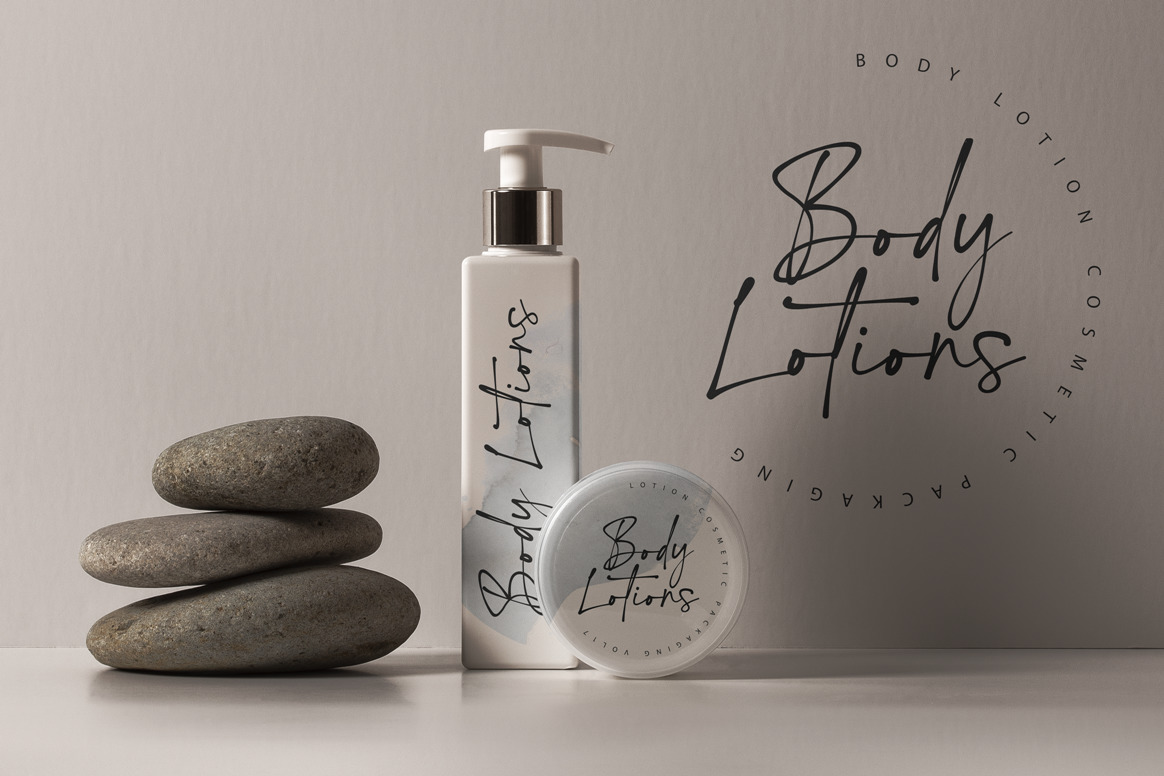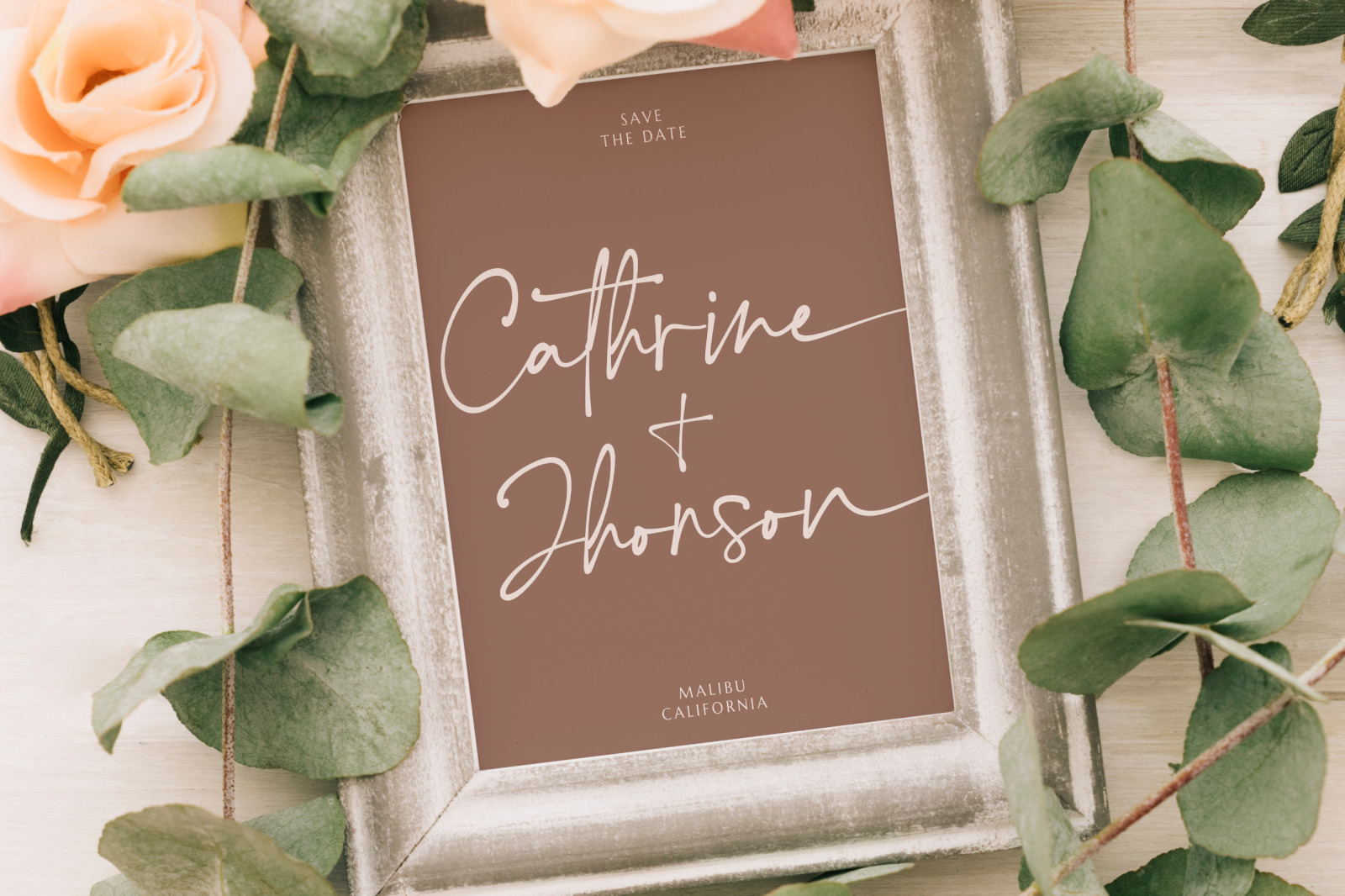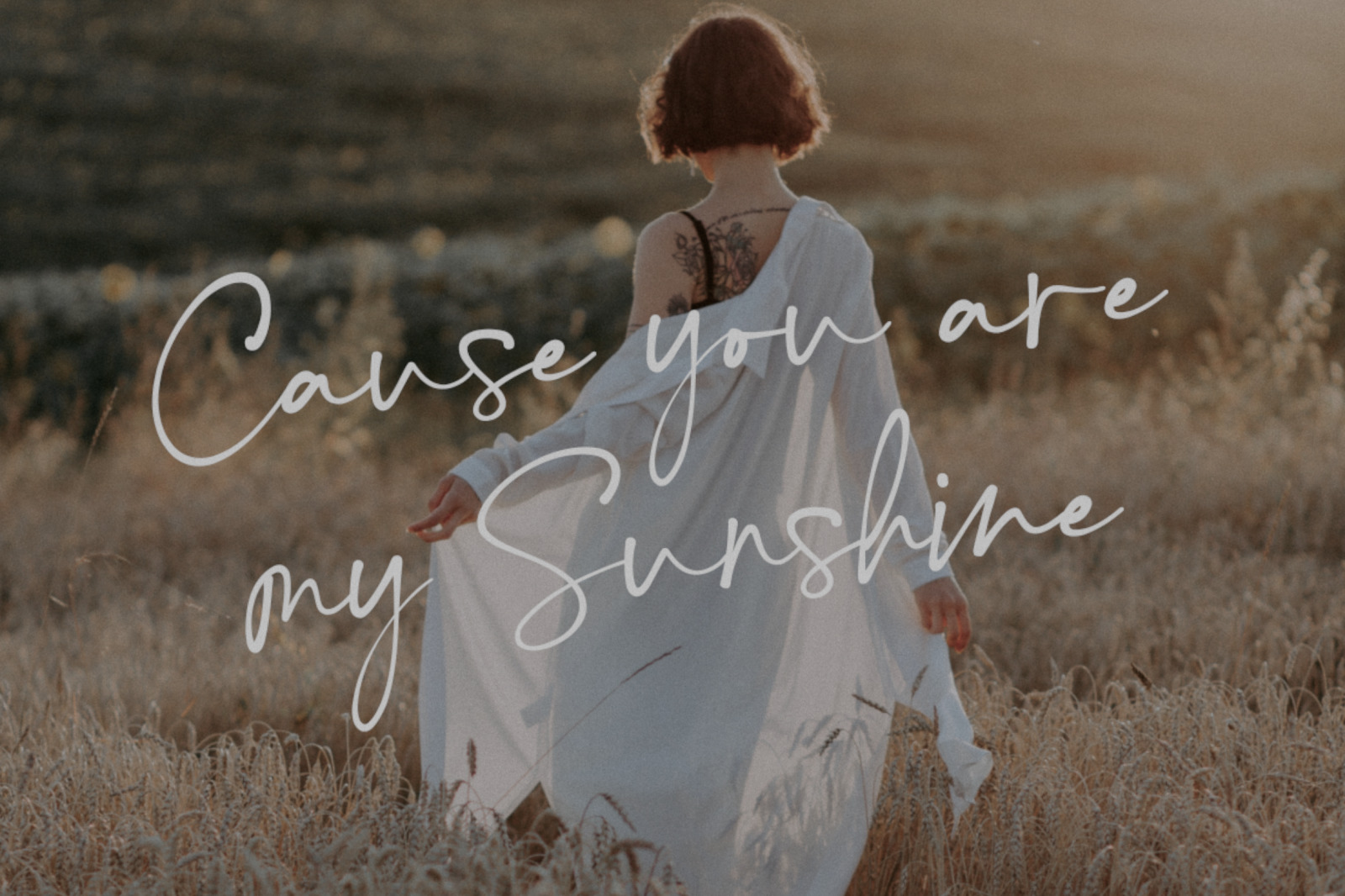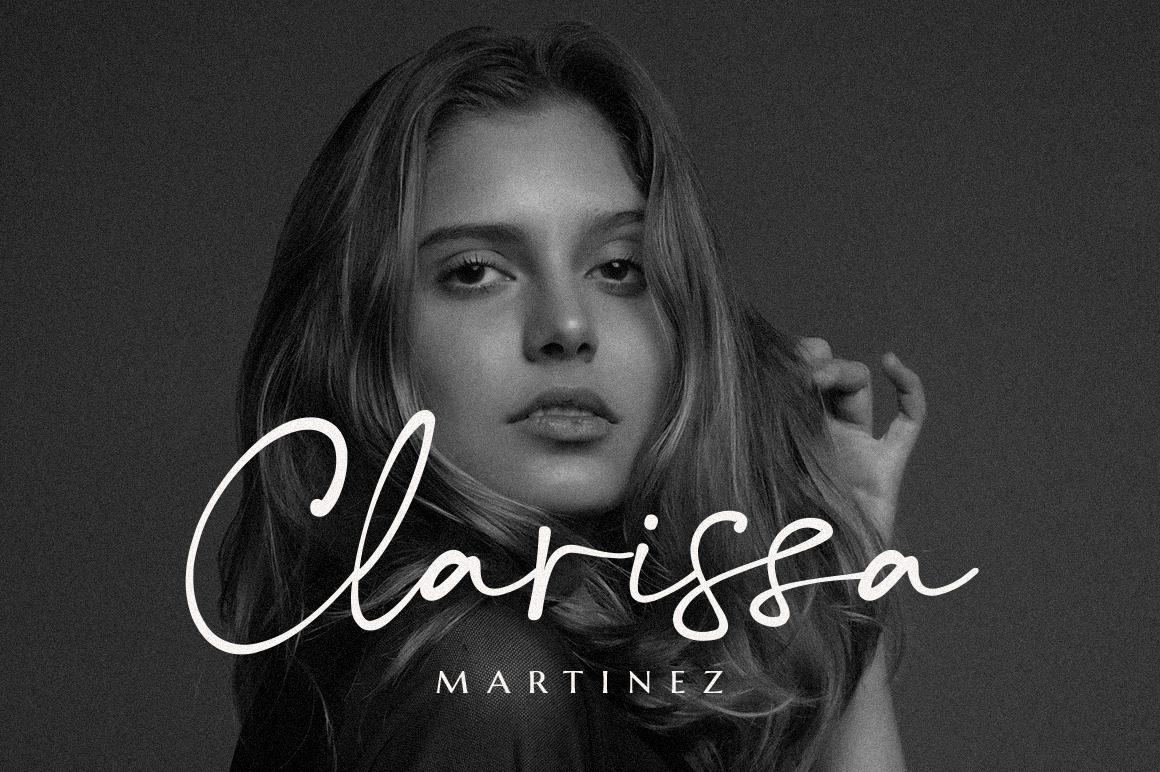
Charlotte Font
Cherlotte is a modern calligraphy font. This font will be perfect for your design project like Branding, wedding, cards, and many more.
Cherlotte includes Upercase & Lowercase letters, numeral, punctuation, lowercase ending swash, and ligatures.